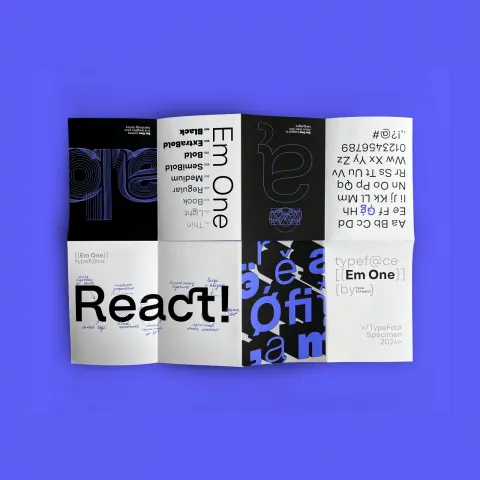
Em One: A New Typeface for the Modern Design Landscape
Em One, a versatile sans-serif typeface, blends simplicity and functionality for web, print, and beyond. Discover its unique features and adaptability in this article.
Hey there, fellow design enthusiasts! Today, I'm stoked to share with you a brand-new typeface that has recently caught my eye. Meet Em One, a compact, clean sans-serif typeface designed to be the cornerstone of your creative projects.
What makes Em One so captivating? It's all about balance. This typeface masterfully walks the line between simple aesthetics and functionality. You'll notice a tall x-height, minimal contrast between strokes, and moderate proportions, all working together to ensure effortless readability.
Em One's adaptability is a major plus. Whether you're crafting web pages, designing print materials, creating brand identities, or working on editorial layouts, this typeface is up to the task. It's like the Swiss Army knife of fonts, always ready to step in and get the job done.
While Em One boasts clean lines and a timeless feel, it's not devoid of personality. Distinctive elements in some letters add a touch of character without creating visual noise. Think of it as a subtle whisper, not a shout.
Em One comes in a family of 9 weights, from Thin to Black, each with its own italic counterpart. So, you've got plenty of options to play with, whether you need a bold headline or a graceful body text.
With support for over 220 languages and optimized for screens, Em One is ready to take on the challenges of today's design landscape.
Em One's combination of simplicity, functionality, and subtle character makes it a valuable addition to any designer's toolkit. If you're looking for a versatile typeface that can handle a wide range of projects, give Em One a try. I think you'll be impressed!
Em One is a functional and practical sans-serif typeface influenced by popular Swiss typefaces from the mid-20th century. Built as a multipurpose font, it excels in both display and functional contexts, remaining recognizable and characterful.